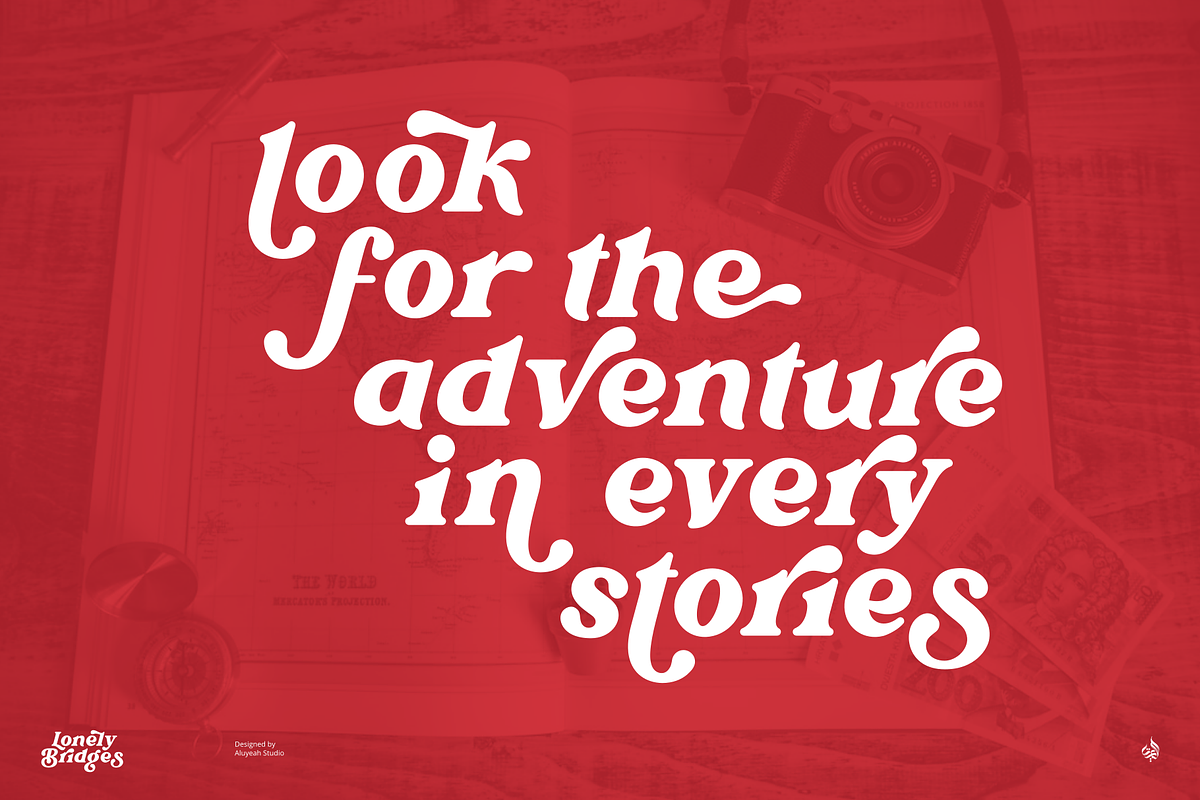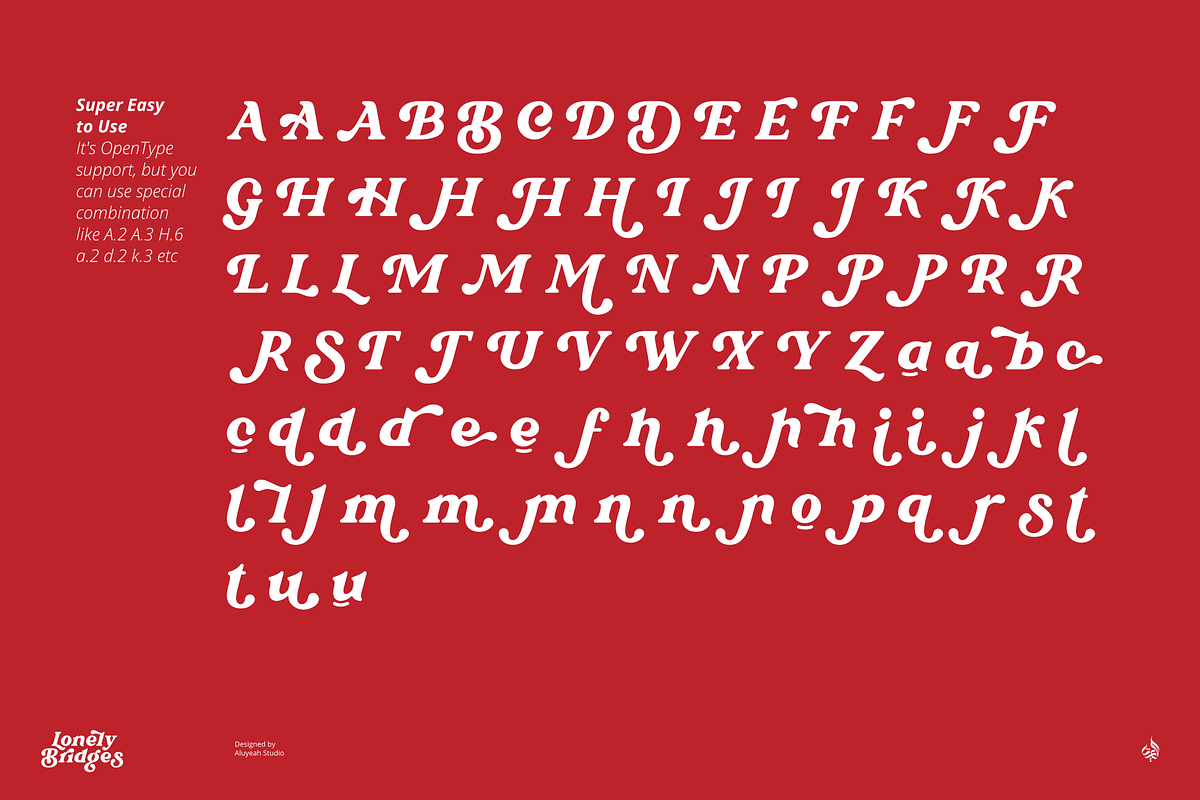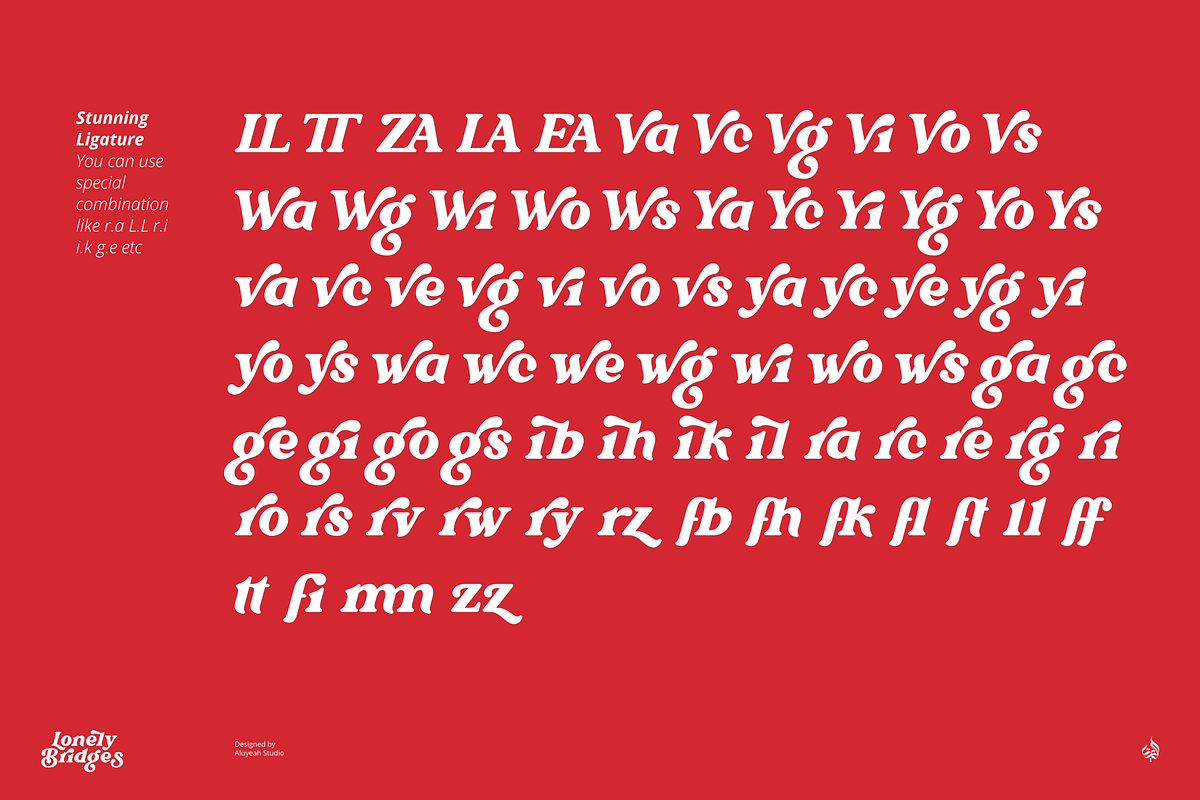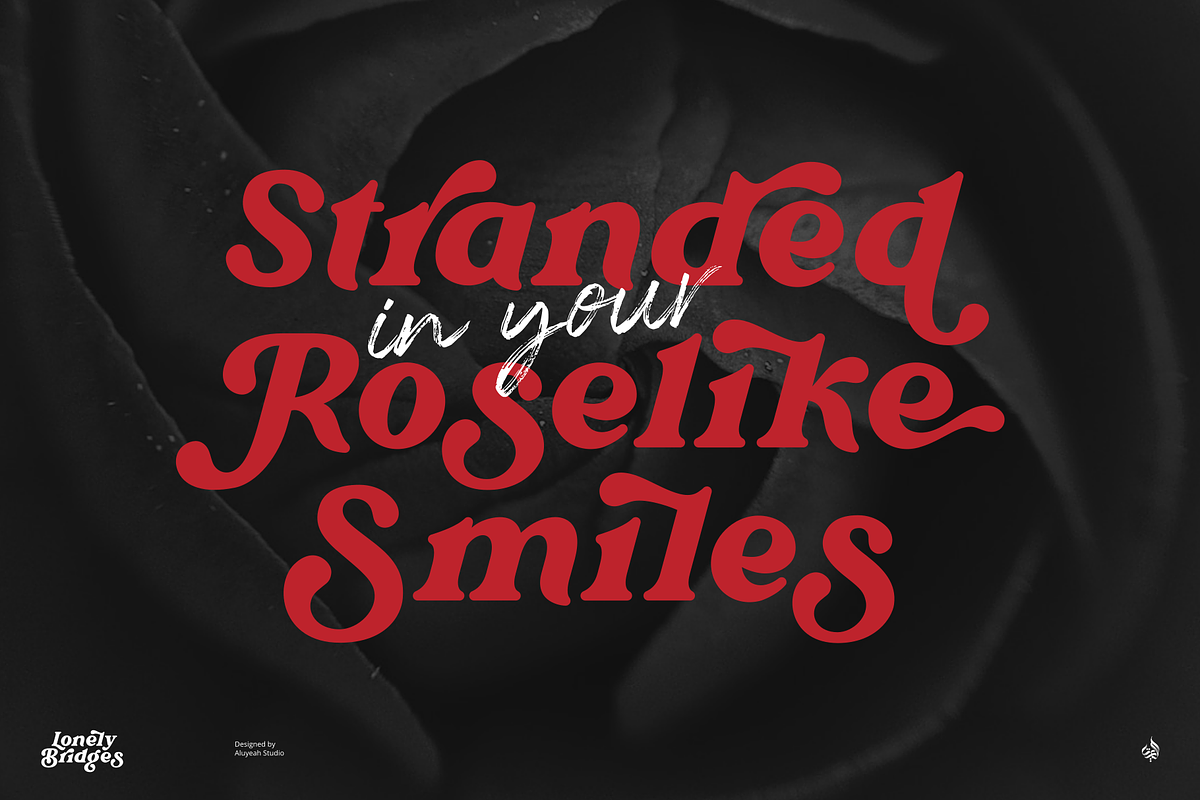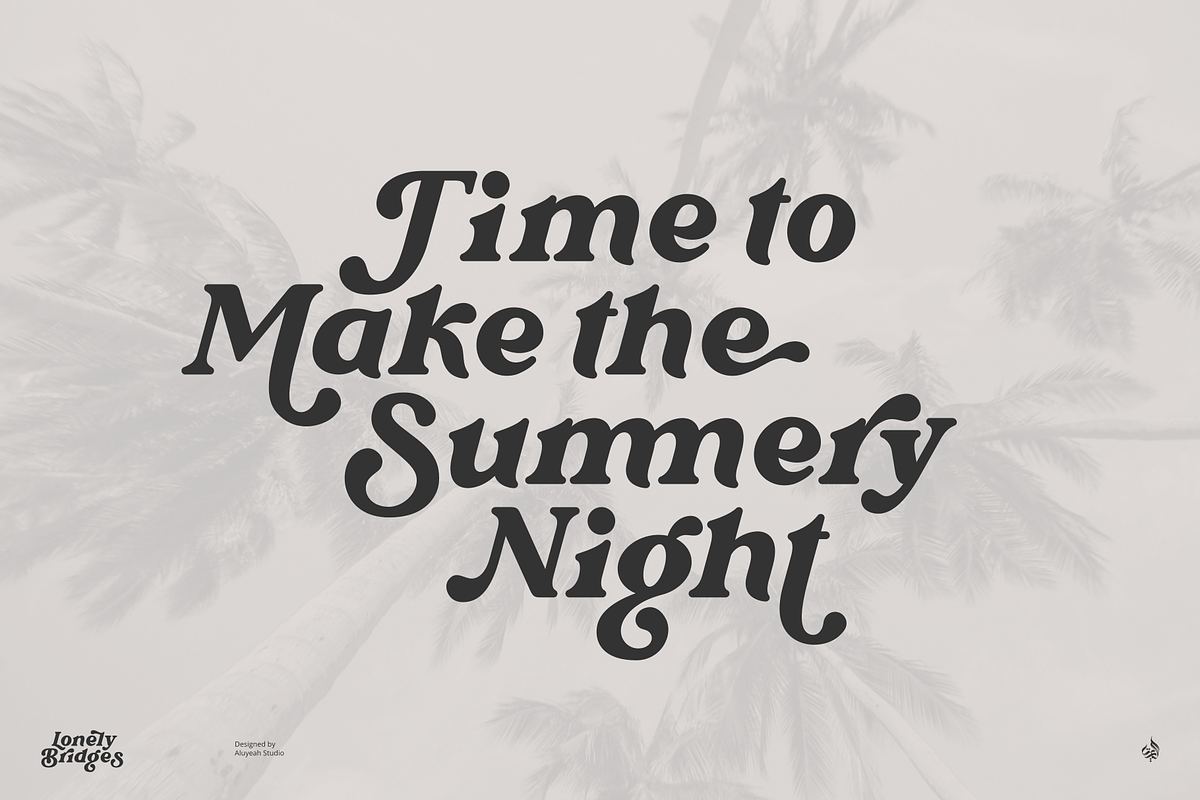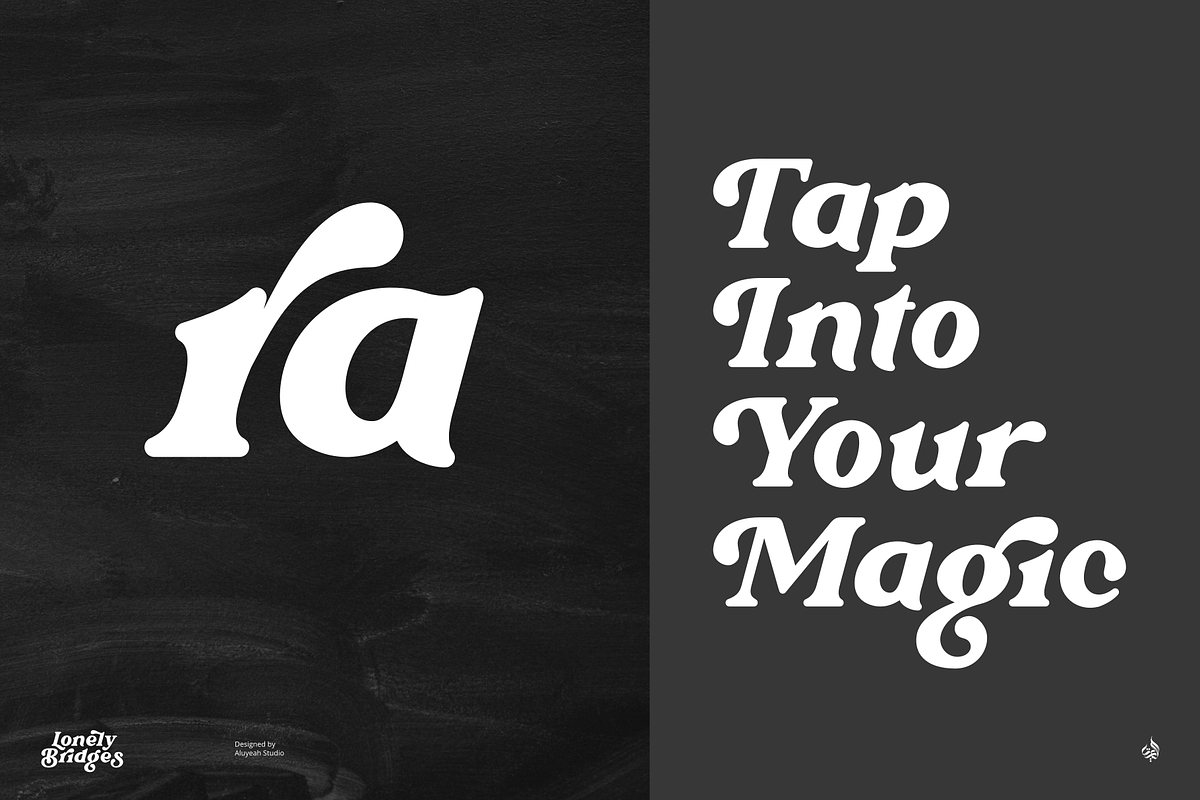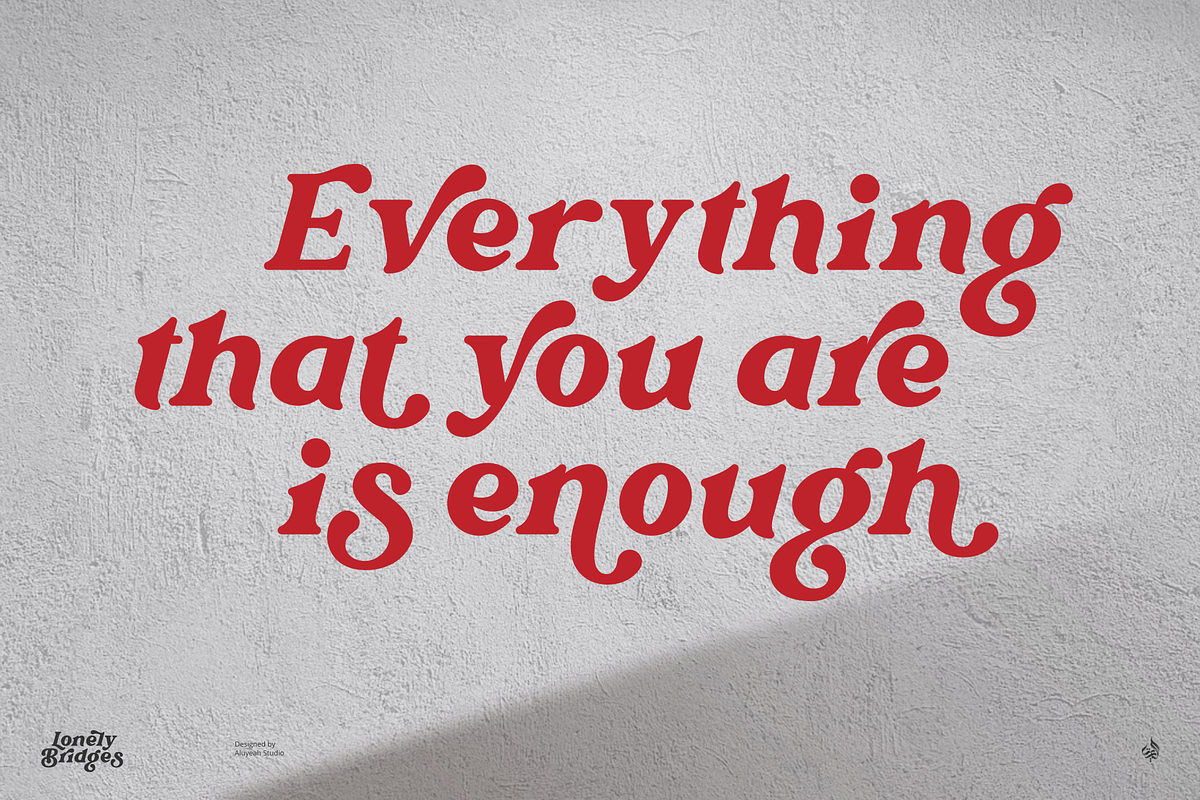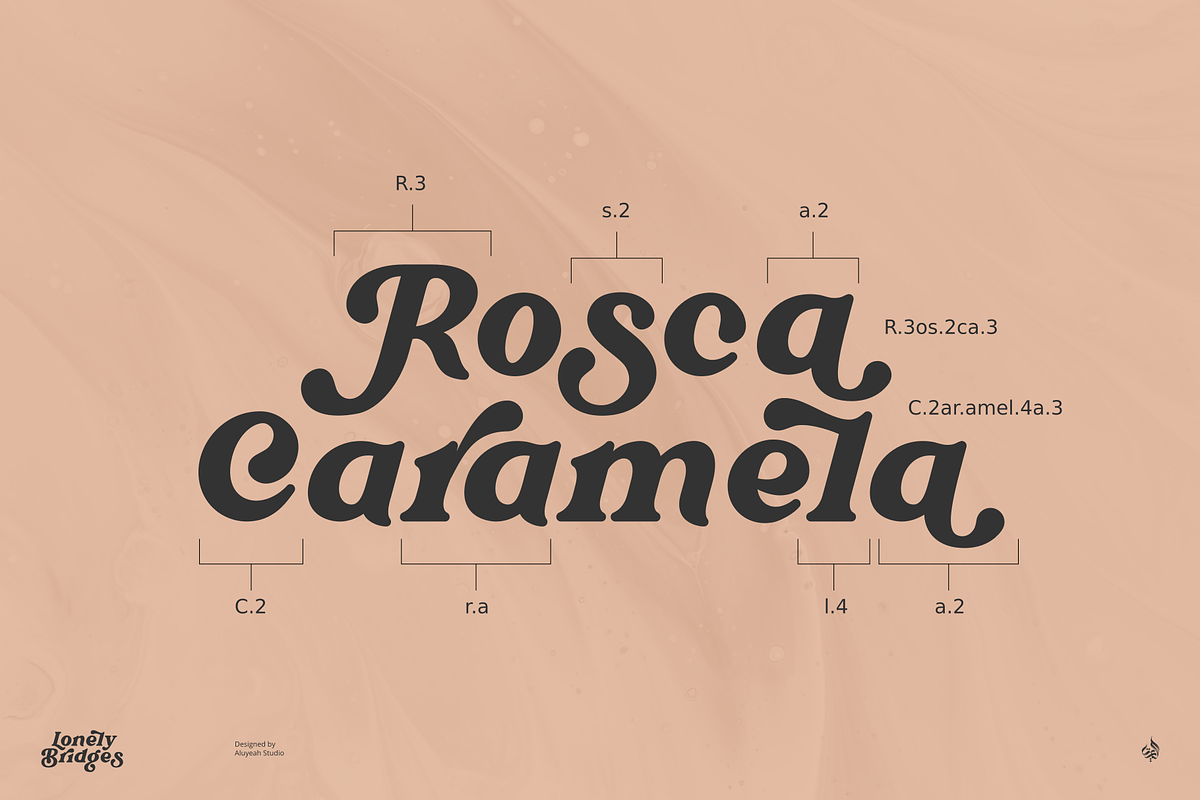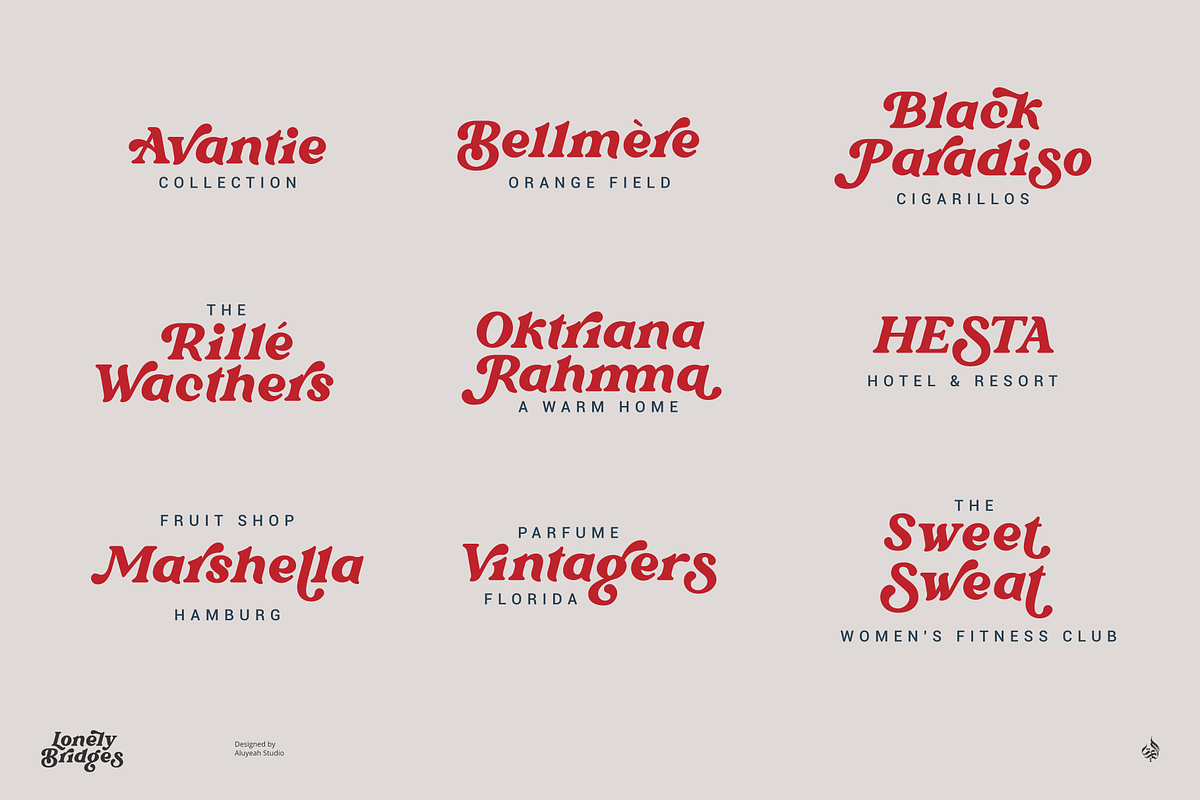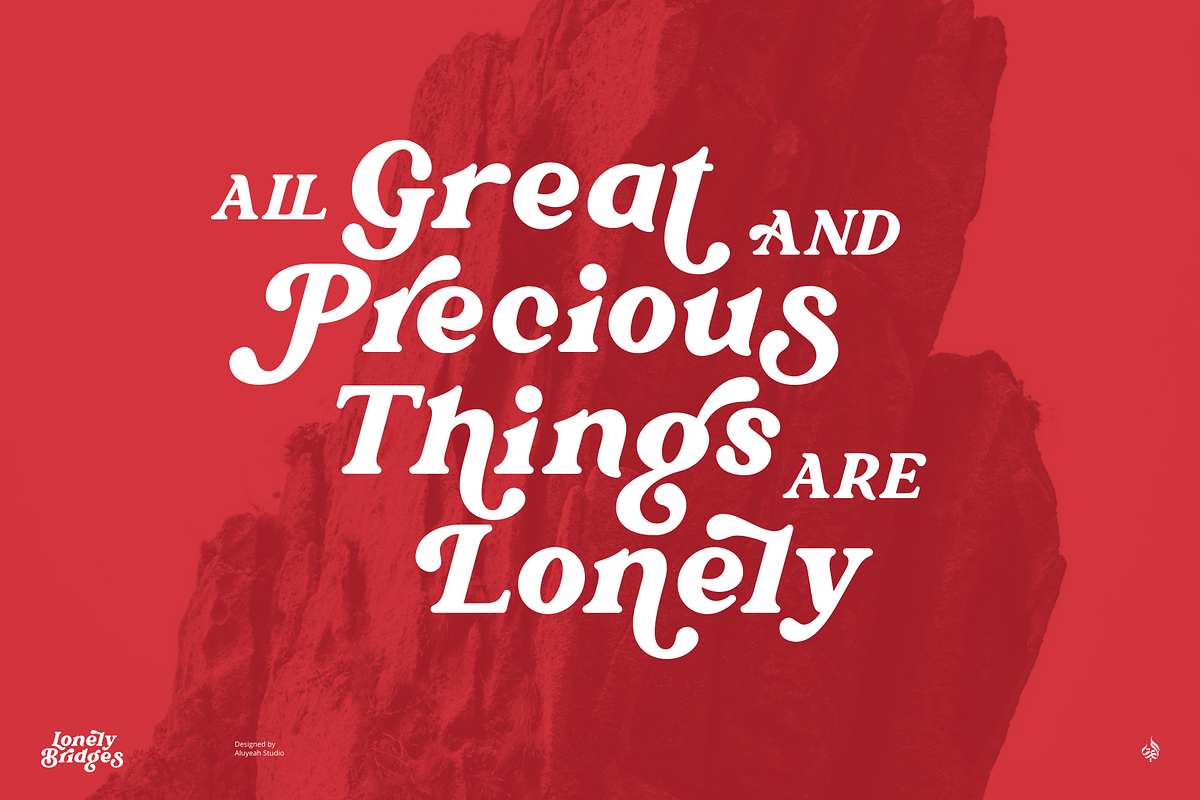
Lonely Bridges
Lonely Bridges a handwritten display font inspired by the soul of solitude. Lonely Bridges carries an italic style giving the impression of an unstable, rebellious, and indecisive soul. Make your design project more emotional to convey.
It can be applied to many areas of design. Coming with 150+ stunning and super easy to use alternates and ligatures. Very suitable for packaging, apps, magazine, headline, website, ads and all type of design project you have.
- OpenType support
- Multilingual support (15 languages)
- Super Easy to Use alternates - You can easily call alternates using special combination like A.2 S.2 L.A r.a g.i i.k etc.
To get results like the preview just type L.4onel.4y B.3r.idges.2